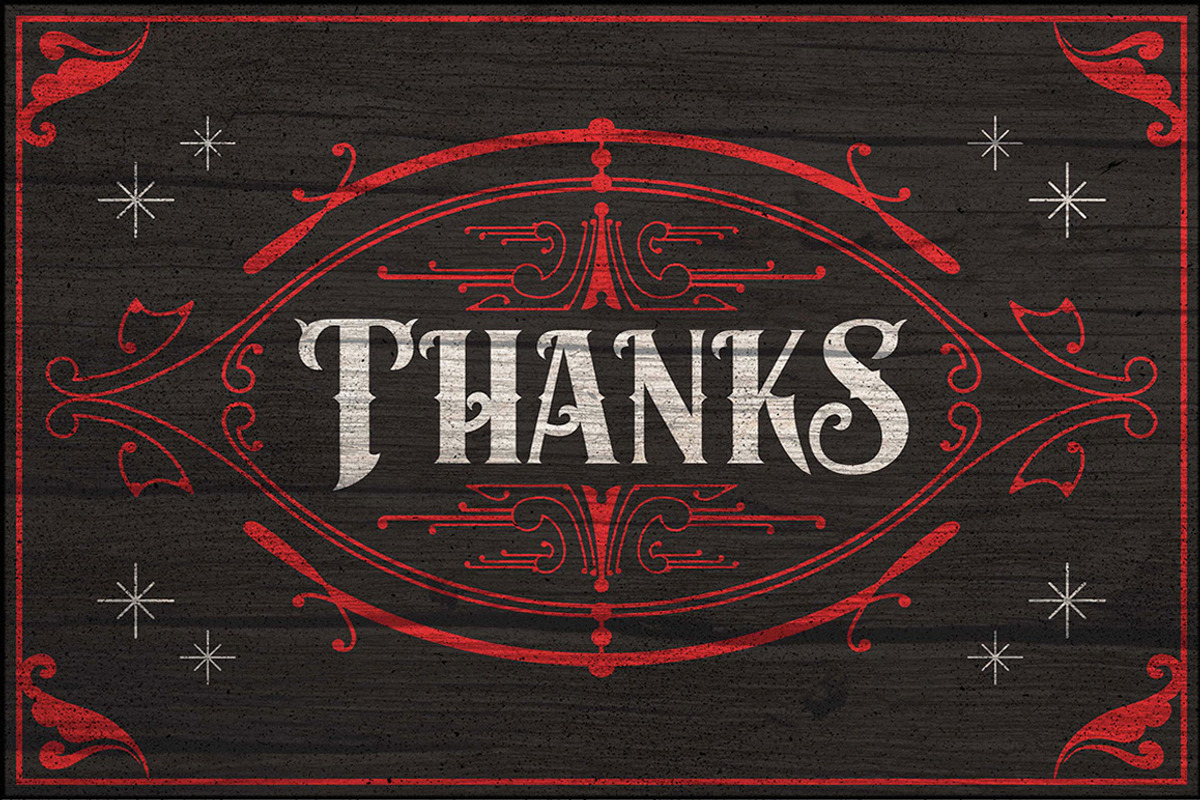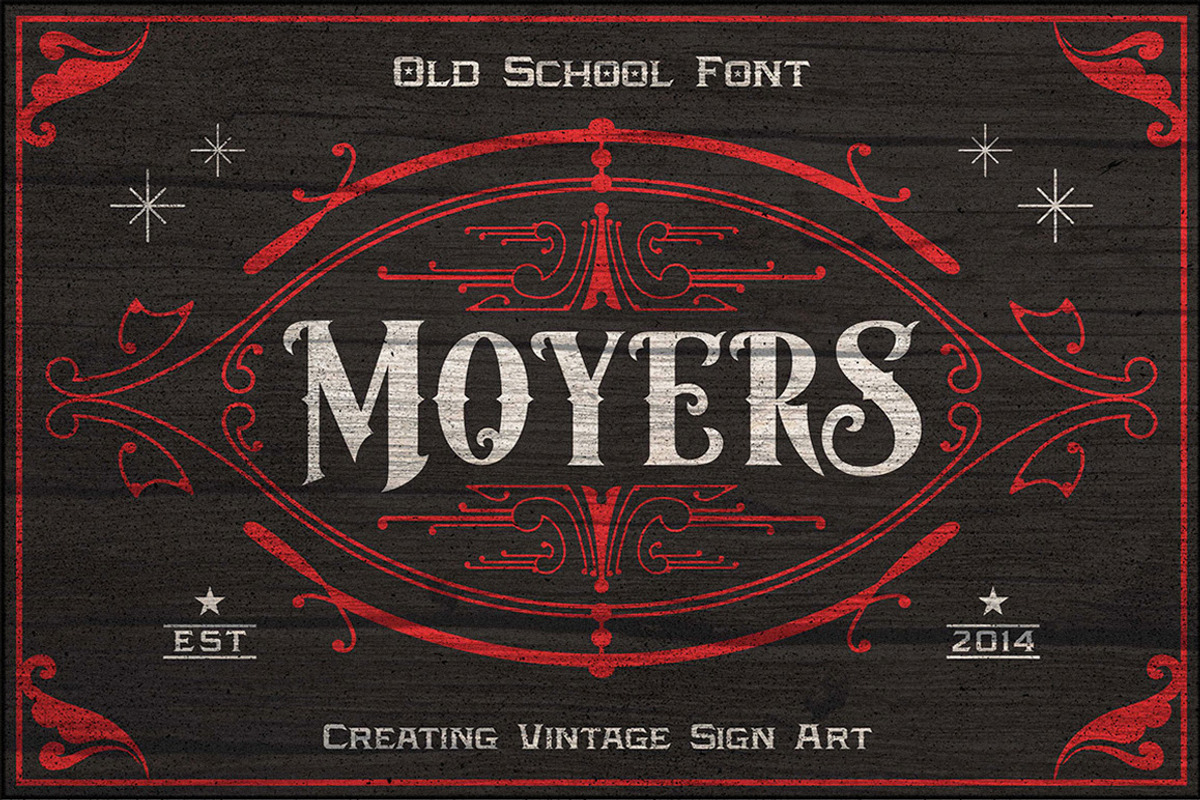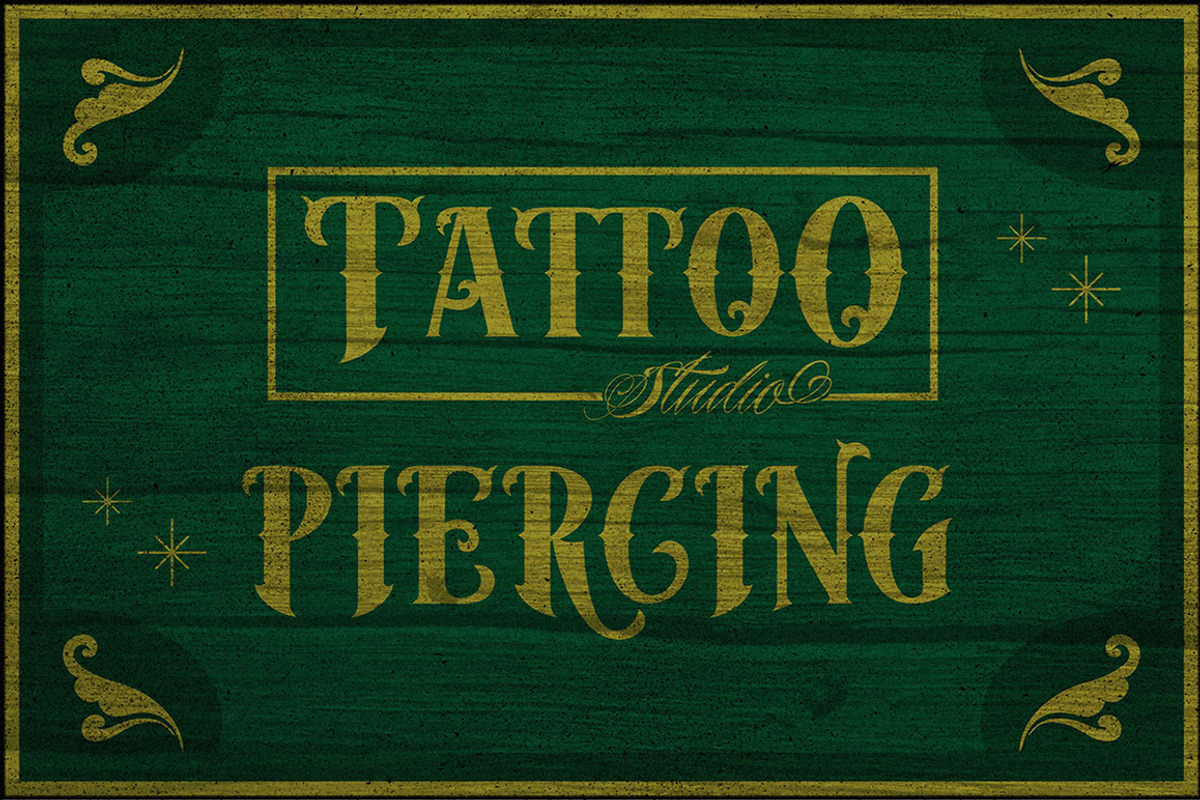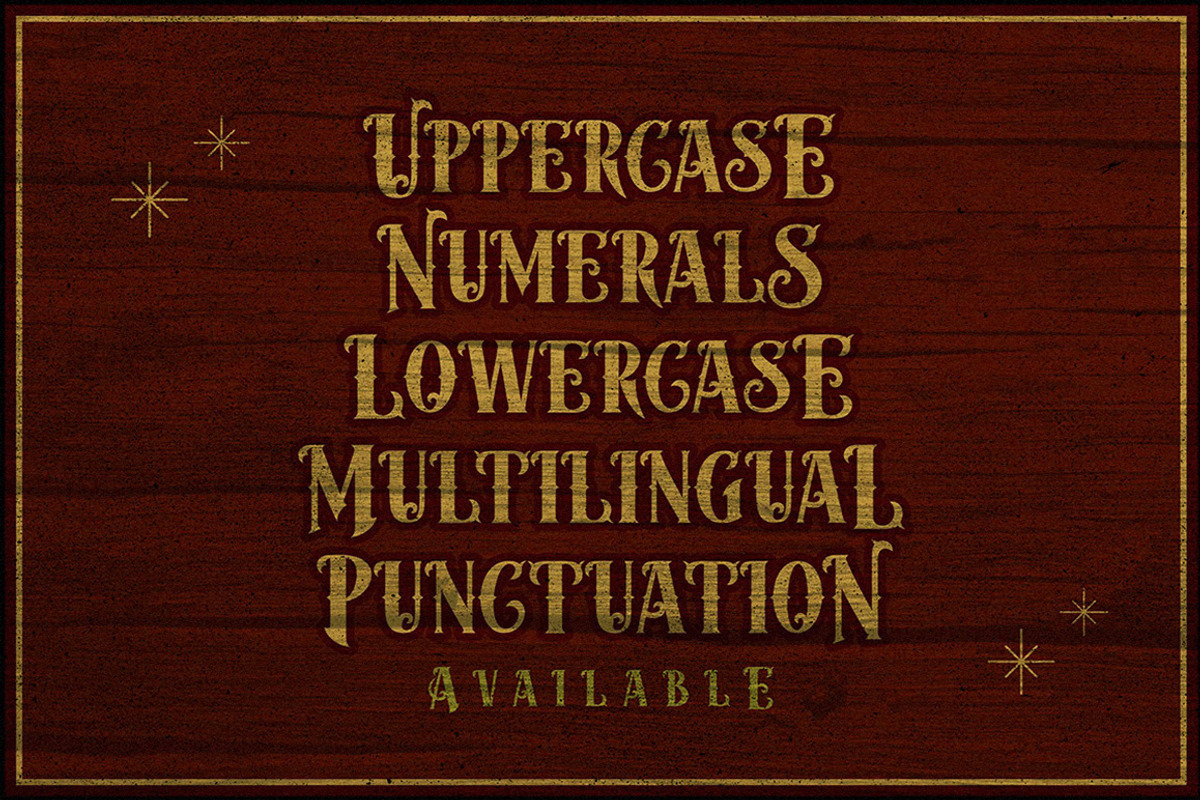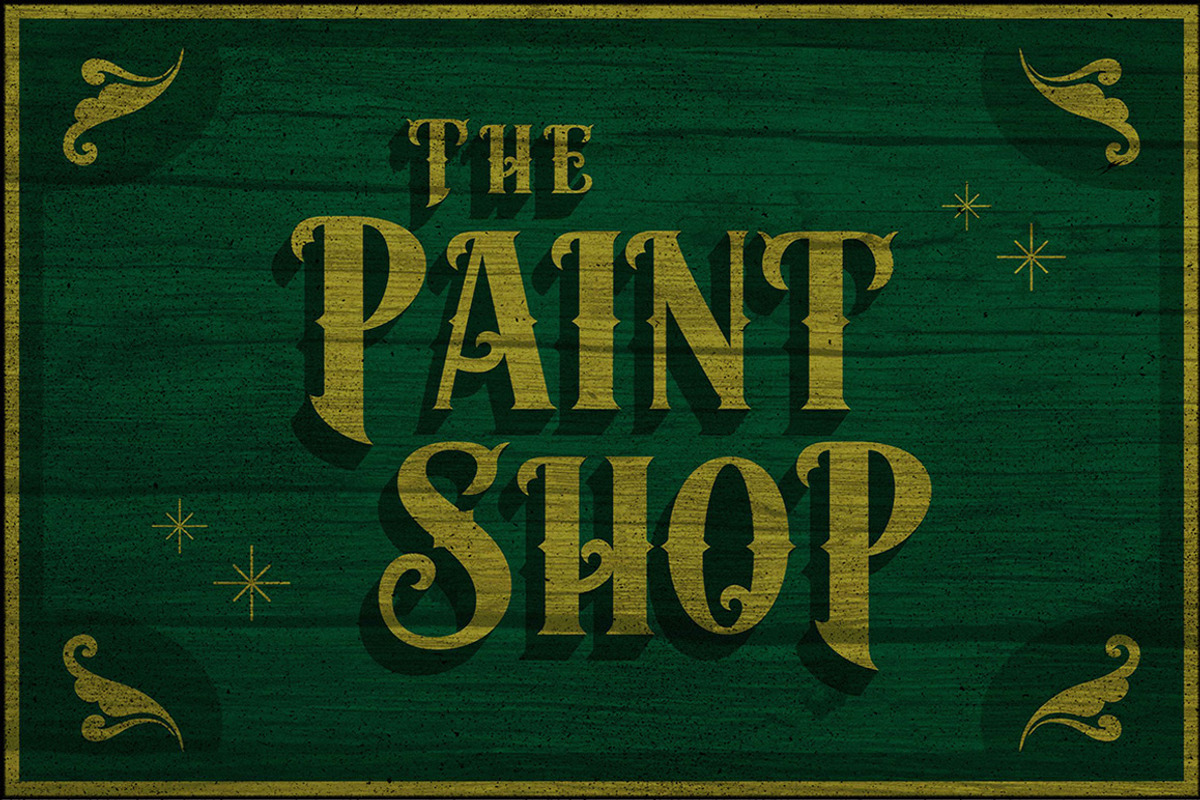
Moyers Typeface
Moyers Typeface by Areatype is a font selected for branding, posters, packaging, typography.
Why Moyers Typeface is worth a look
Moyers Typeface by Areatype fits naturally into Branding, posters, packaging, typography.